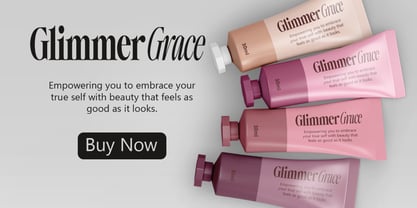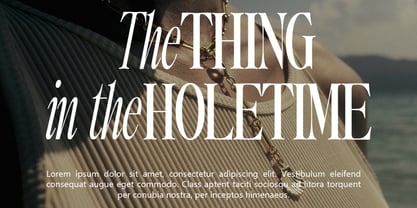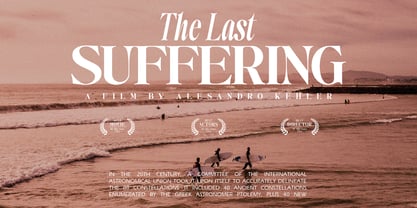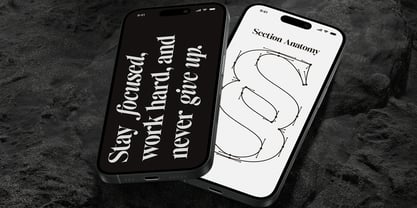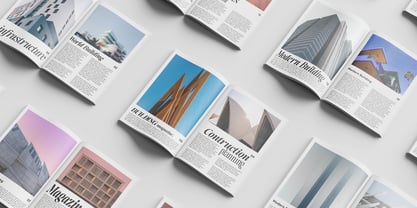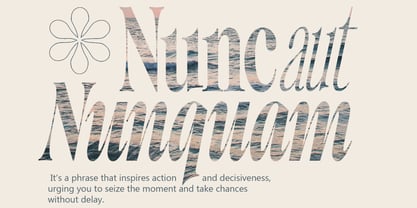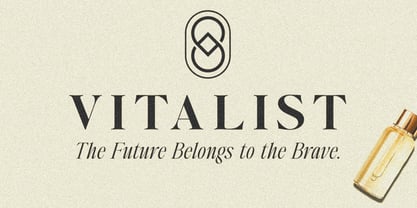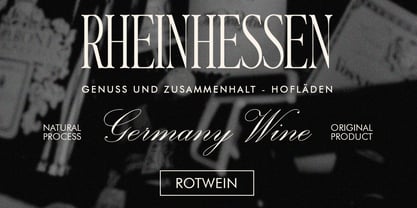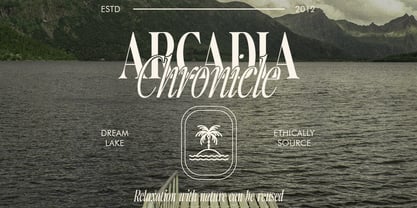
Writers Mark Display
by Positive Type
The Writers Mark Display Font Family was designed by Nur Hayati and published by Positive Type. Writers Mark Display contains 81 styles and family package options.
Positive TypeFoundry presents Writer’s Mark Display | Font Family – a modern, high-contrast transitional serif typeface that exudes a captivating blend of contemporary sophistication and timeless elegance.
Born under the skilled hands of Nur Hayati, the graceful Writer’s Mark Display is here to make a lasting impression. The defining characteristics of Writer’s Mark Display are the striking contrast between thick and thin strokes, smooth graceful ovals, rounded ball terminals, and sharp bracket serifs that make a strong visual impact.
All these qualities make this font ideal for designers who want to create refined and visually stunning compositions that leave an impression. Elegance, sophistication, and exclusivity.